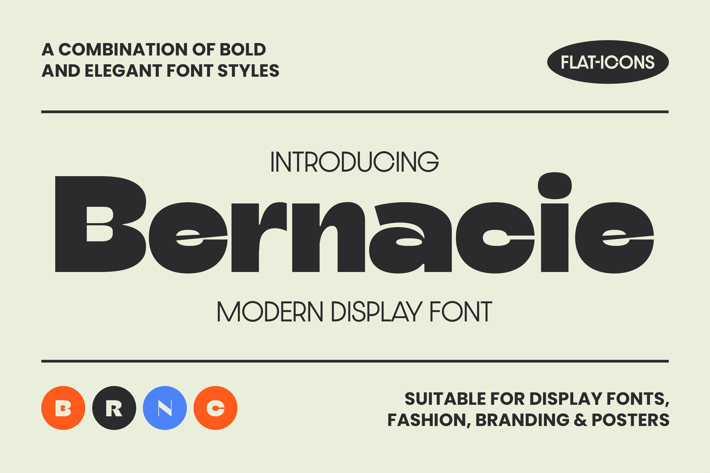
Bernacie Display Font
Introducing Bernacie – A Modern Display Font
Bold and captivating, Barnacie is the perfect choice for digital and print projects alike. Use it for branding, headlines, marketing materials, and more!
Bring sleek, modern charm to your designs with this versatile display font.
Multilingual & Ligature Support
Full sets of Punctuation and Numerals